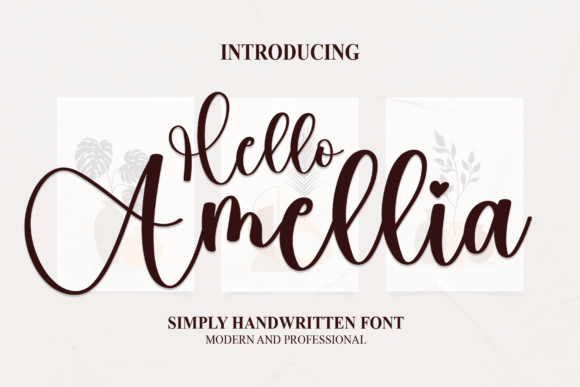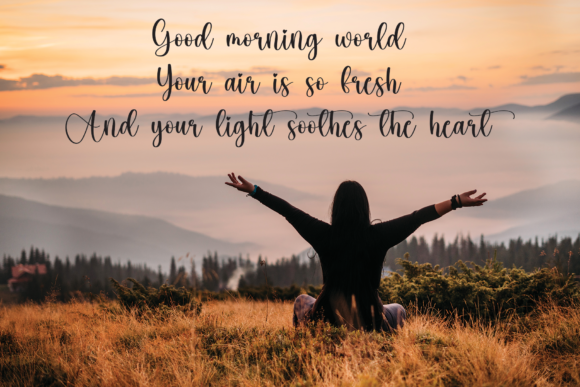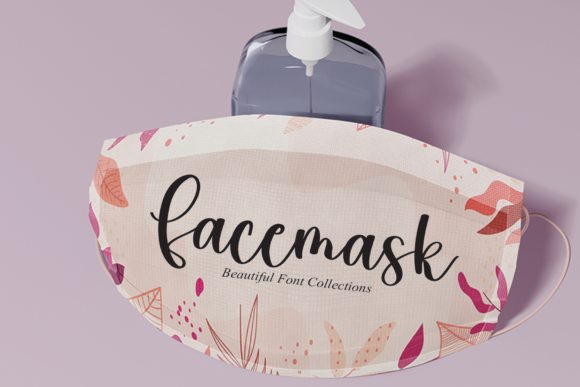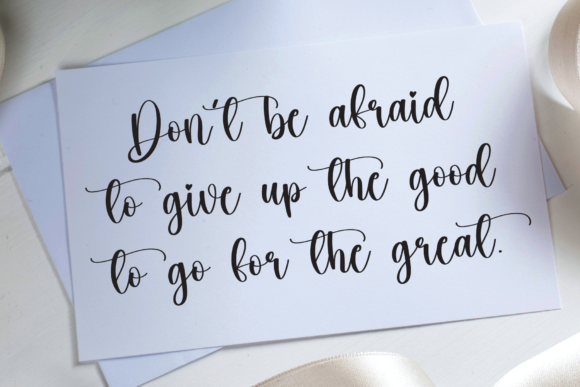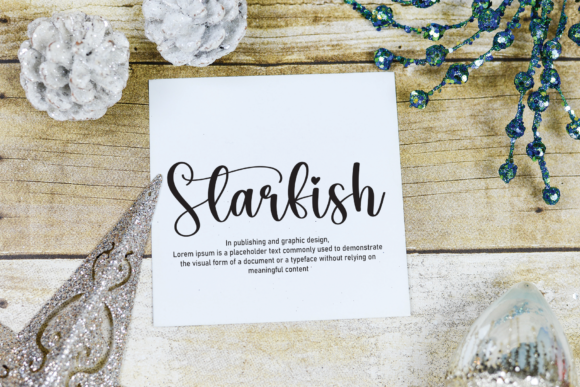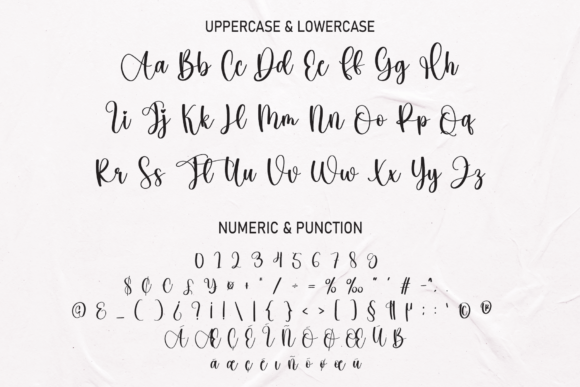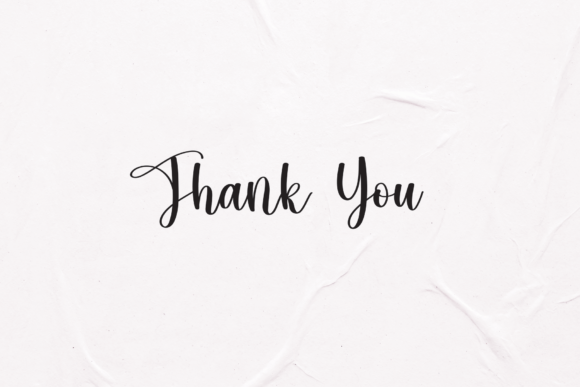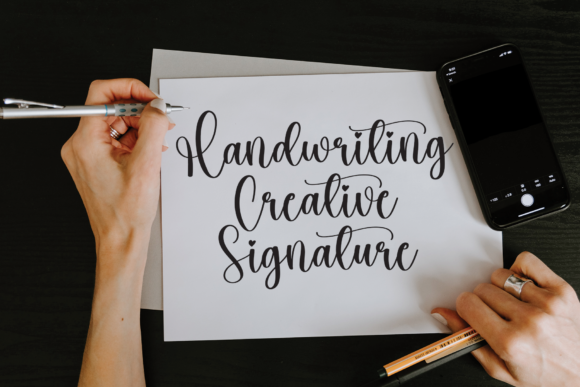
Hello Amellia Font
Hello Amellia is a sweet, whimsical, flowing and thin script font. Featuring characters that dance along the baseline, this font will add a luxury spark to any design project that you wish to create!